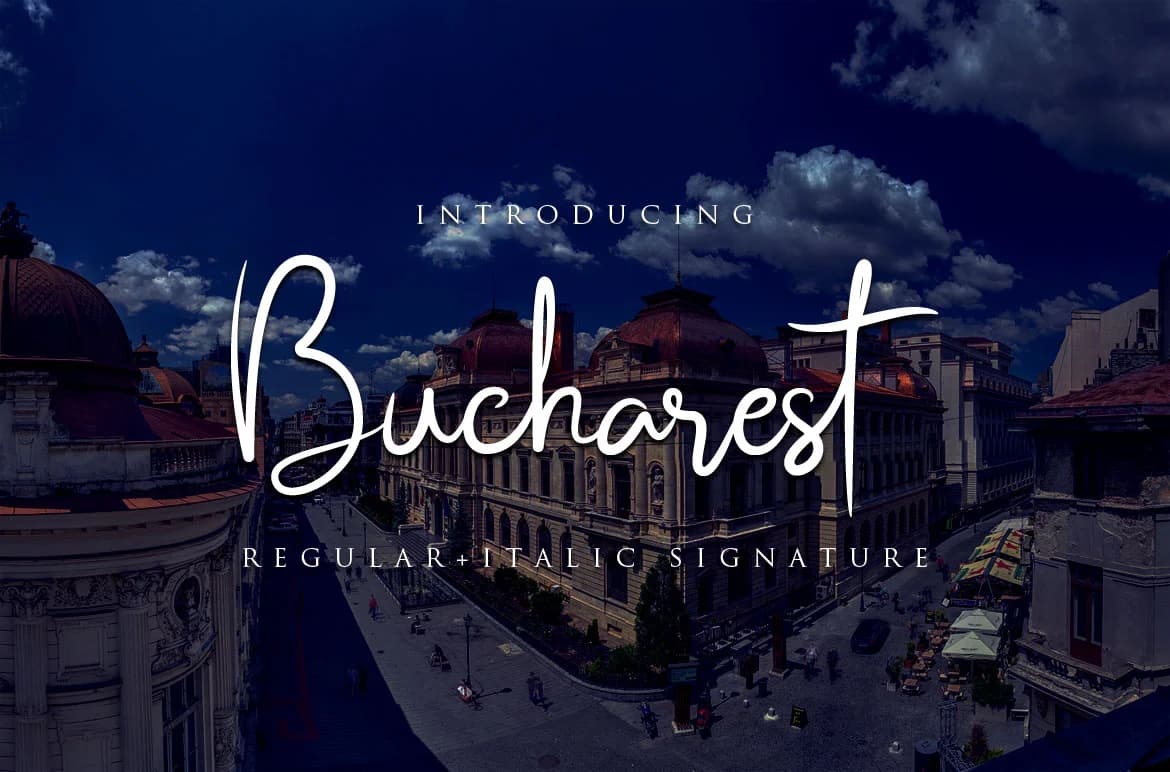
Bucharest by Bluestudio is a modern signature script that brings contemporary sophistication to hand-lettered typography projects. With its sleek letterforms and natural flow, this font captures the elegance of authentic penmanship while maintaining a polished, modern feel. The design includes both regular and italic options, providing you with creative flexibility for different design scenarios and layout needs.
This script font excels across diverse applications where personal touch and refinement intersect. Wedding invitation suites benefit from its sophisticated character, delivering the perfect balance between elegance and handwritten authenticity. It's equally effective for custom packaging design on artisanal products and boutique brands seeking a curated, premium aesthetic. Personalized greeting cards, event monograms, and artistic branding projects all gain depth from Bucharest's genuine letterform personality. The font's clean execution makes it particularly strong for product labels and decorative signage where legibility and sophistication work together seamlessly.
Beyond traditional applications, this script performs well in upscale stationery design, luxury brand identities, and custom social media graphics that demand a personal, curated feel. Whether you're creating intimate materials for clients who appreciate quality craftsmanship or designing collateral that speaks to artisanal values, Bucharest delivers the signature aesthetic your projects deserve. Get this elegant script font on Creative Fabrica and bring authentic handwritten character to your designs.
Bucharest Font is a script font that shines as a display or heading face. Pair it with a clean sans-serif or serif font for body text β the contrast creates a clear hierarchy while the two styles stay balanced and easy to read.
Bucharest Font